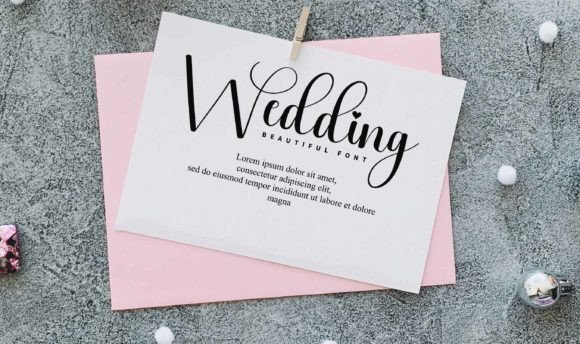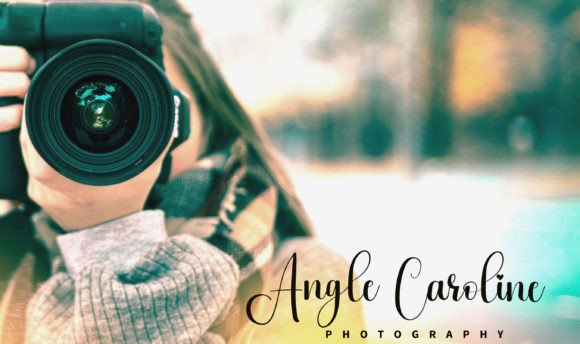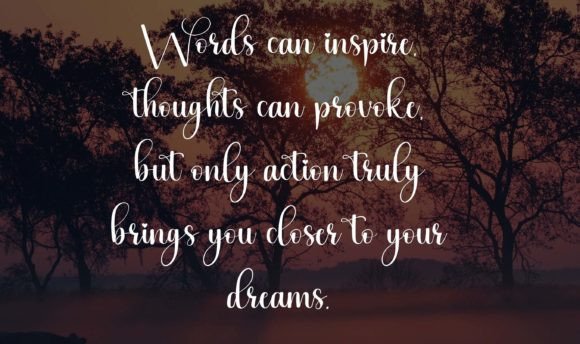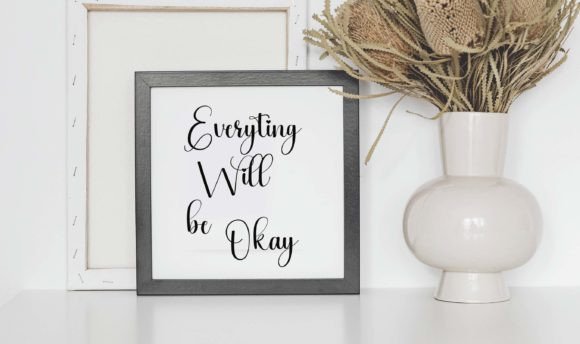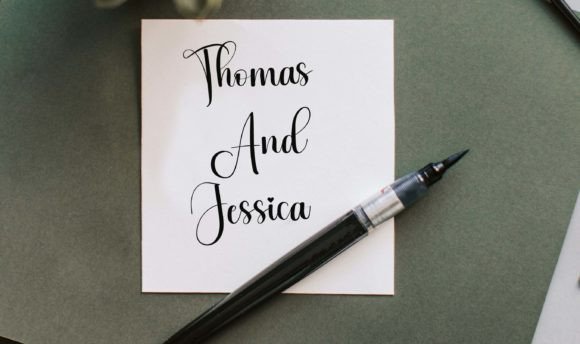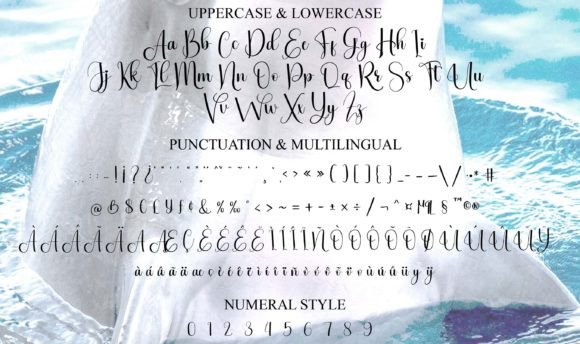
Dolphins Font: A Delicate and Elegant Handwritten Font for Your Designs
Are you a designer or crafter looking for a font that can add a touch of elegance and sophistication to your designs? Look no further than Dolphins Font, a beautiful handwritten font that is sure to capture your heart. With its delicate and elegant style, Dolphins Font is perfect for creating stunning designs that will leave a lasting impression.
What Makes Dolphins Font So Special?
Dolphins Font is a masterpiece of typography, with distinct and well-balanced letters that make it stand out from other fonts. Its incredibly versatile style makes it suitable for a wide range of design projects, from wedding invitations and party decorations to branding and advertising materials. Whether you’re a professional designer or a crafty DIY enthusiast, Dolphins Font is sure to become your go-to font for all your design needs.
Key Features of Dolphins Font
- Delicate and Elegant Style: Dolphins Font has a delicate and elegant style that is perfect for creating sophisticated designs.
- Handwritten Font: This font is a beautiful handwritten font that adds a personal touch to your designs.
- Distinct and Well-Balanced Letters: The letters in Dolphins Font are distinct and well-balanced, making it easy to read and understand.
- Incredibly Versatile: Dolphins Font is incredibly versatile and can be used for a wide range of design projects.
Why Choose Dolphins Font?
There are many reasons why you should choose Dolphins Font for your design projects. Here are a few:
- Unique and Eye-Catching: Dolphins Font is a unique and eye-catching font that will make your designs stand out from the crowd.
- Elegant and Sophisticated: This font has an elegant and sophisticated style that is perfect for creating high-end designs.
- Easy to Read: The letters in Dolphins Font are clear and easy to read, making it perfect for body text and headings.
- Highly Versatile: Dolphins Font can be used for a wide range of design projects, from print materials to digital designs.
How to Use Dolphins Font in Your Designs
Using Dolphins Font in your designs is easy and straightforward. Here are a few tips to get you started:
- Pair it with Other Fonts: Dolphins Font can be paired with other fonts to create a unique and interesting design.
- Use it for Headings and Titles: This font is perfect for headings and titles, where you want to make a bold statement.
- Add it to Your Digital Designs: Dolphins Font can be used in digital designs, such as social media graphics and website headers.
- Experiment with Different Colors: This font looks great in a variety of colors, so don’t be afraid to experiment and find the perfect color for your design.
In conclusion, Dolphins Font is a beautiful and elegant handwritten font that is perfect for designers and crafters who want to add a touch of sophistication to their designs. With its delicate and elegant style, distinct and well-balanced letters, and incredibly versatile style, Dolphins Font is sure to become your go-to font for all your design needs. So why wait? Fall in love with Dolphins Font and start creating spectacular designs today!